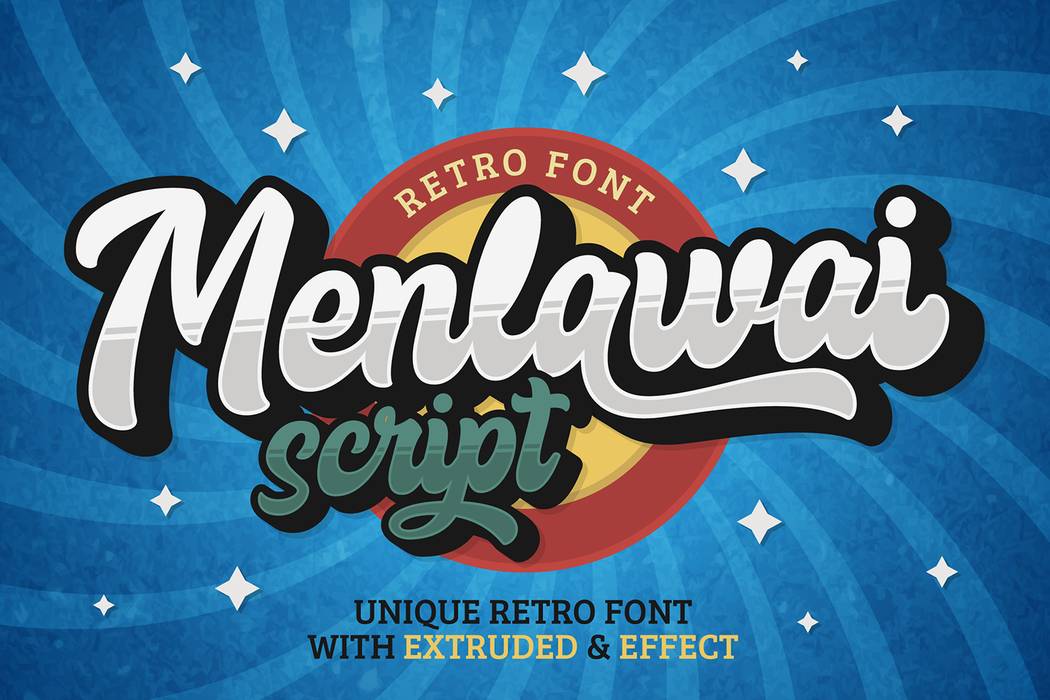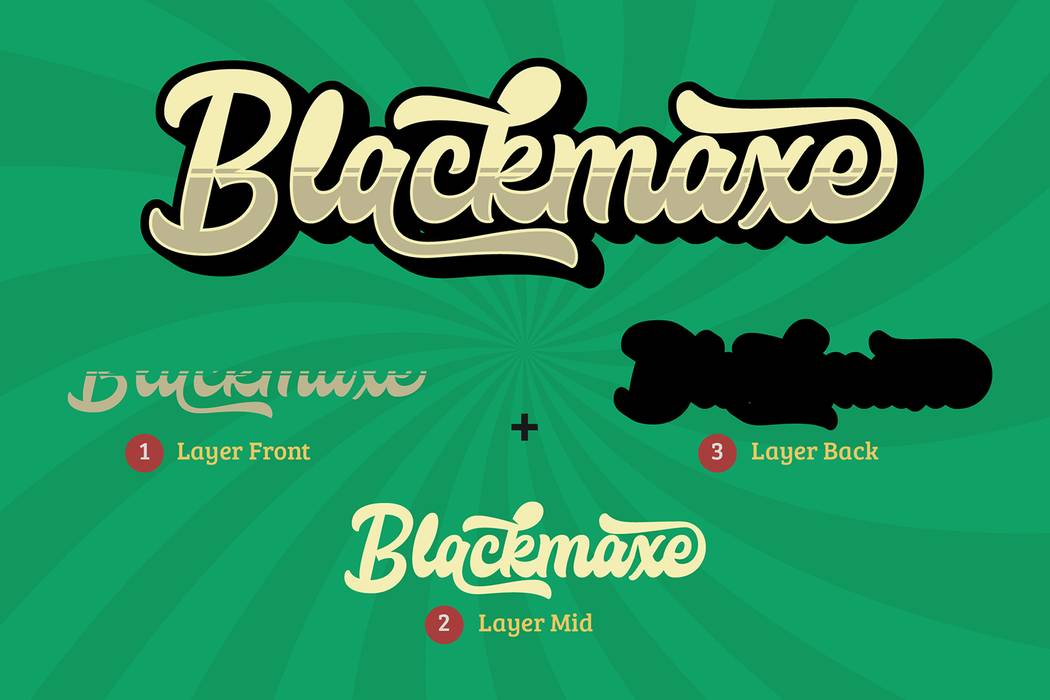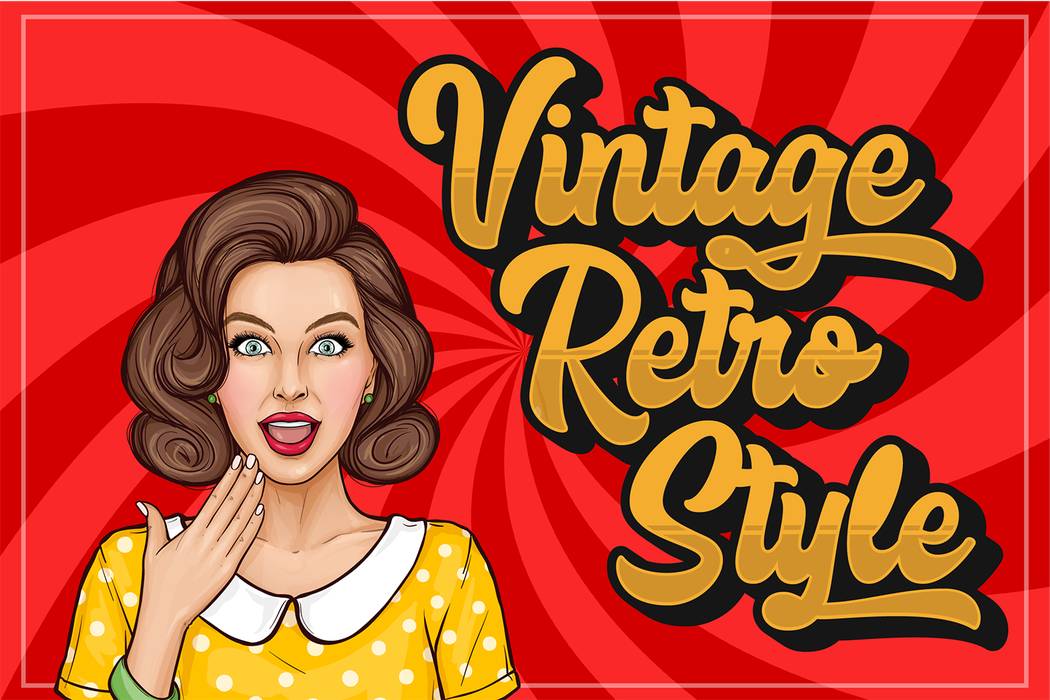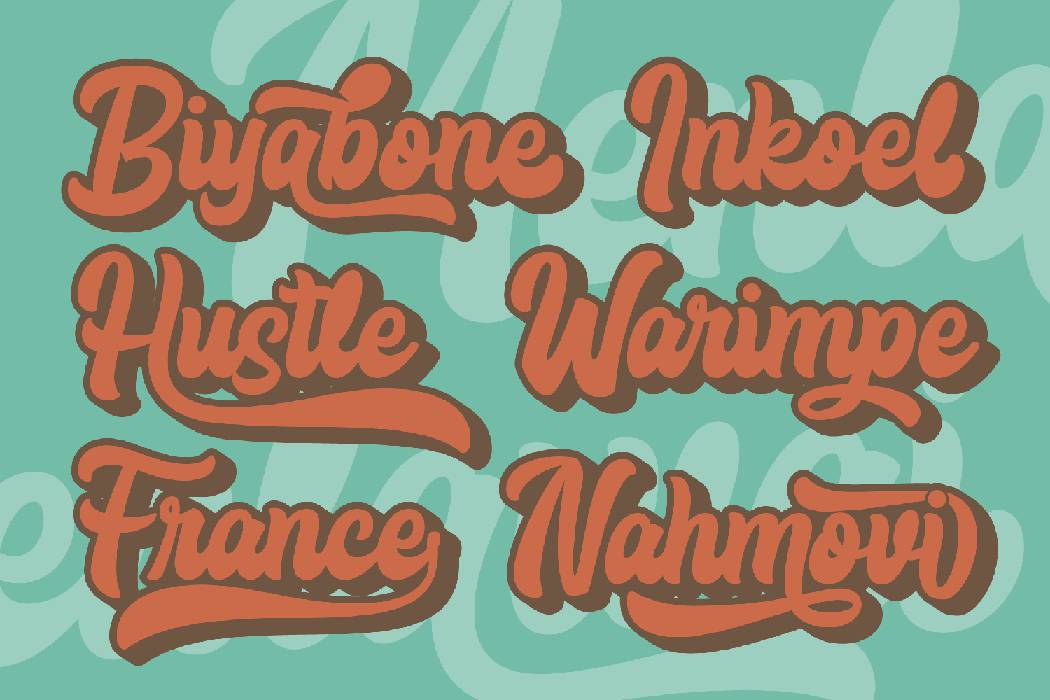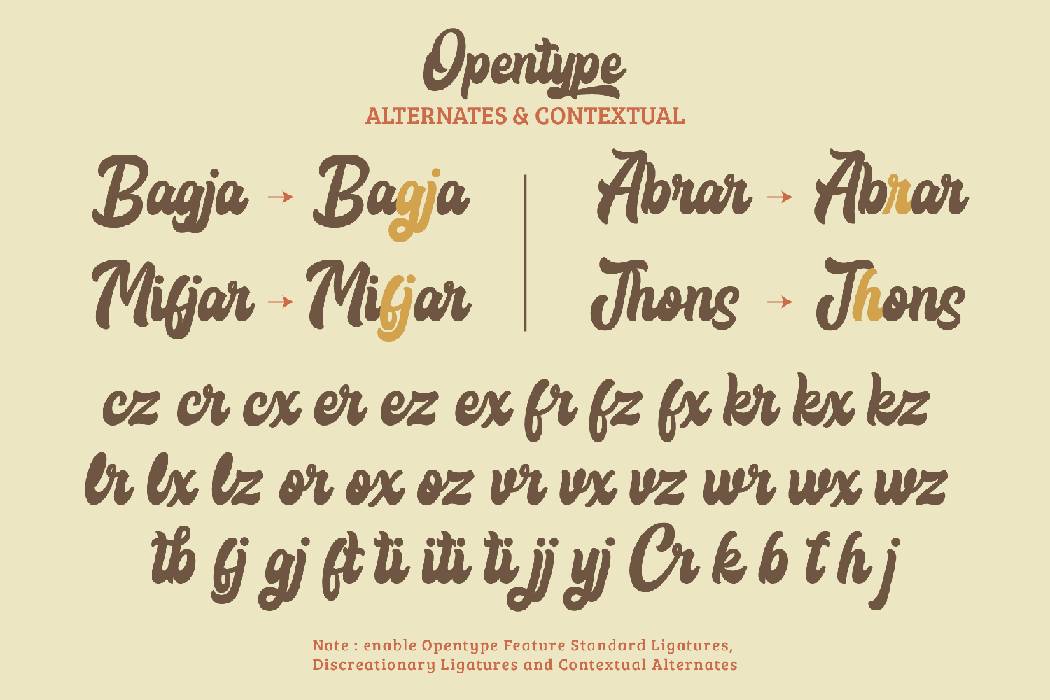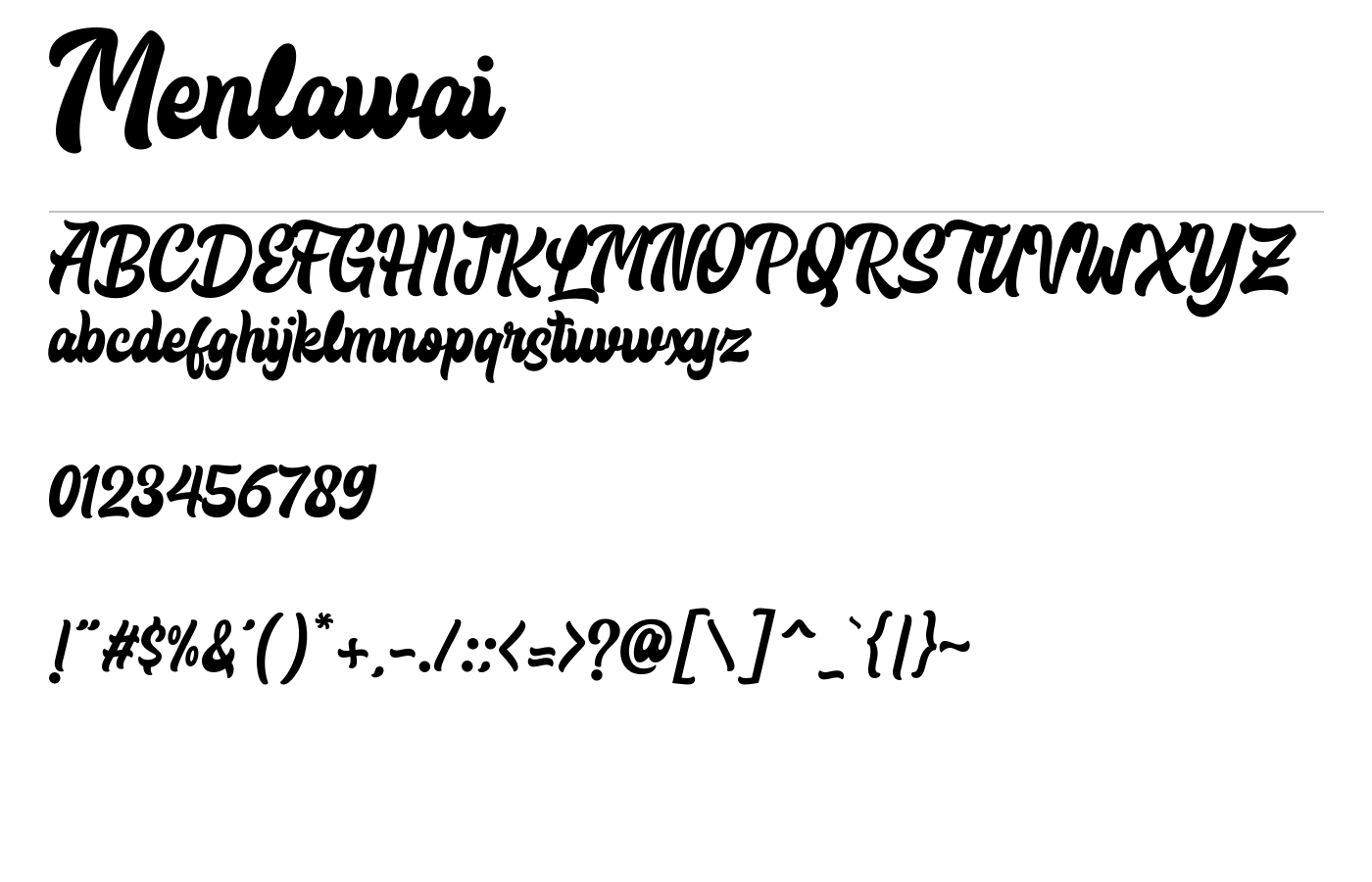
Menlawai is a bold, script font with a smooth, flowing style that feels lively and personal. Its rounded, connected letterforms give it a friendly and approachable character, making it perfect for creative branding, casual invitations, and eye-catching headlines that desire a handwritten touch. This font works well where a warm, informal, yet confident voice is needed to engage viewers.
Menlawai Font
About Menlawai Font
| Font family | Menlawai Font |
| Designer | Dida Ahluddin |